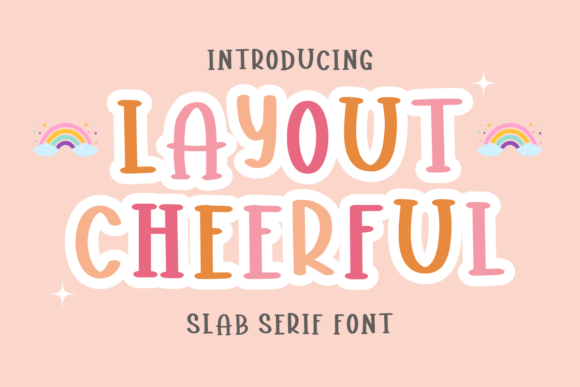
Layout Cheerful: A Handwritten Slab Serif Font for Creative Projects
Layout Cheerful is a unique handwritten slab serif font that brings a playful and charming aesthetic to any design. Its casual, hand-drawn style makes it ideal for personal and creative projects where a friendly, approachable look is desired. The font’s distinct character sets it apart from more rigid or formal typefaces, offering a fresh alternative for those looking to add a touch of personality to their work.
Unlike many standard fonts, Layout Cheerful combines the structural elements of a slab serif with the organic feel of a handwritten script. This blend creates a visual balance between readability and expressiveness, making it suitable for both small text and larger headings. Its versatility allows it to be used in a wide range of applications, from digital to print, and across different mediums such as stationery, branding, and book design.
What Makes Layout Cheerful Unique?
One of the key features of Layout Cheerful is its handwritten quality. Each letter appears as if it was drawn by hand, giving the font a warm, authentic feel. This characteristic makes it particularly appealing for projects that aim to convey a personal or artisanal vibe. Whether used in a journal, planner, or card, the font adds a sense of individuality and creativity.
The slab serif structure of Layout Cheerful also contributes to its distinct appearance. Slab serifs are known for their bold, block-like strokes, which provide a strong visual presence. When combined with the fluidity of a handwritten style, this results in a font that is both eye-catching and easy to read. The contrast between the structured and organic elements gives the font a dynamic quality that can enhance the overall design of a project.
Another notable aspect of Layout Cheerful is its adaptability. It works well in both digital and physical formats, making it a valuable tool for designers, writers, and hobbyists alike. Its legibility at various sizes ensures that it can be used effectively in different contexts, from large headlines to smaller notes and labels.
Comparing Layout Cheerful with Similar Fonts
When considering Layout Cheerful, it’s helpful to compare it with other fonts that share similar characteristics. For instance, fonts like Quicksand or Nunito offer a modern, clean look but lack the handwritten charm of Layout Cheerful. These sans-serif fonts are often preferred for professional or minimalist designs, whereas Layout Cheerful is better suited for more informal or expressive projects.
On the other hand, fonts with a more traditional handwritten style, such as Brush Script or Pacifico, may have a similar casual feel but tend to be less structured. While these fonts can be great for artistic purposes, they may not offer the same level of clarity and consistency as Layout Cheerful. This makes Layout Cheerful a more practical choice for users who want a readable yet distinctive font.
For those working on projects that require a mix of formality and creativity, Layout Cheerful strikes a good balance. It is not as rigid as a traditional serif font like Times New Roman, nor as whimsical as a highly stylized script. This middle ground makes it a versatile option for a variety of design needs.
Best Fit Situations for Layout Cheerful
Layout Cheerful is particularly well-suited for projects that emphasize creativity and personal expression. Journals, planners, and scrapbooks often benefit from the font’s friendly and approachable style, as it helps create a cohesive and inviting aesthetic. Its readability also makes it a good choice for to-do lists, calendars, and notebooks where clarity is important.
In addition to personal projects, Layout Cheerful can be useful in commercial settings. For example, it may be employed in KDP (Kindle Direct Publishing) interiors or templates to add a unique visual element to e-books or printed materials. Its ability to stand out without being overwhelming makes it a valuable asset for content creators looking to differentiate their work.
However, it’s important to consider the context in which the font will be used. In more formal or professional environments, Layout Cheerful may not be the best choice. Its casual appearance could be perceived as unprofessional, depending on the audience and purpose of the design. In such cases, a more traditional or neutral font might be more appropriate.
Tradeoffs and Limitations
While Layout Cheerful offers many advantages, it also has some limitations that users should be aware of. One potential drawback is its suitability for long blocks of text. The font’s handwritten style, while visually appealing, may not be as easy to read in extended passages. This means it is better suited for short phrases, headings, or decorative elements rather than body text.
Another consideration is the availability of the font. Unlike widely used typefaces, Layout Cheerful may not be as readily accessible in all design software or platforms. Users may need to download or purchase the font separately, which could be a barrier for some. Additionally, the font’s unique style may not align with all design themes, requiring careful selection and testing before final implementation.
For those who prefer a more structured and professional look, fonts like Montserrat or Open Sans provide a clean and modern aesthetic. These options are ideal for projects that require a high level of readability and a polished appearance.
Ultimately, the choice of font depends on the intended use, audience, and overall design goals. By carefully evaluating the available options, users can select the most appropriate typeface for their needs.